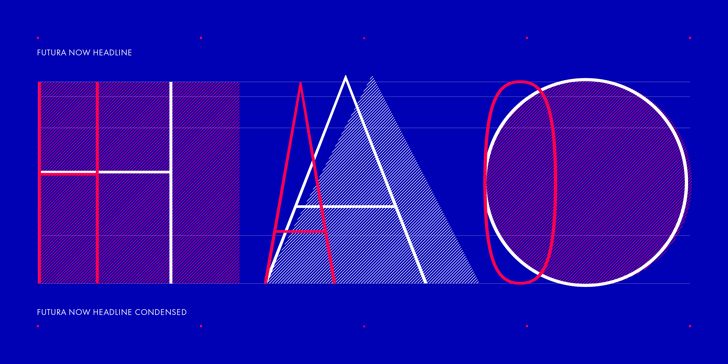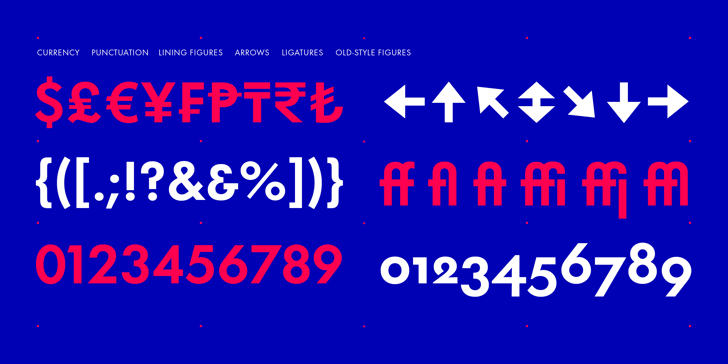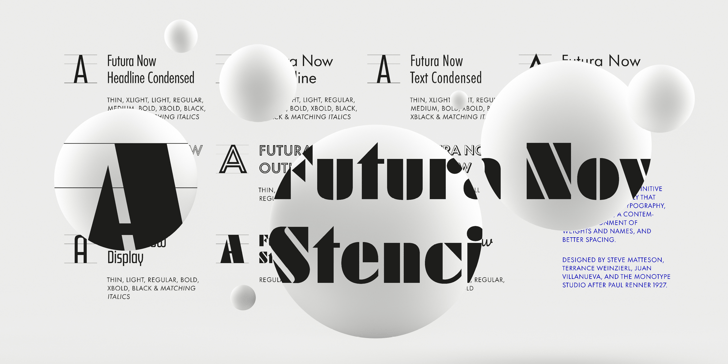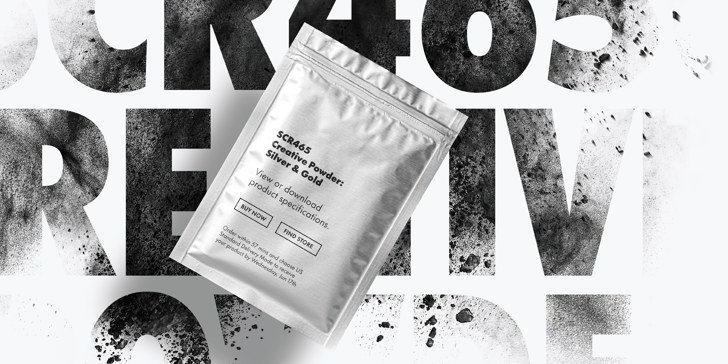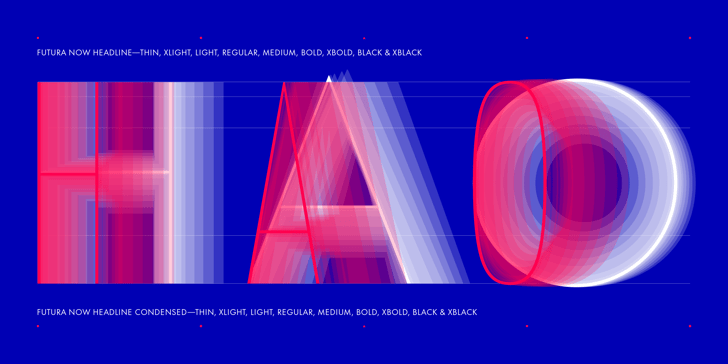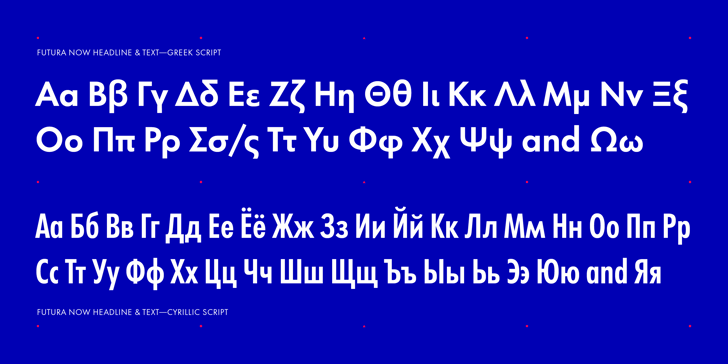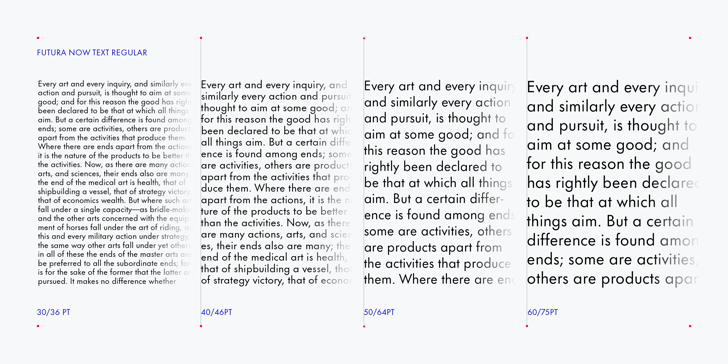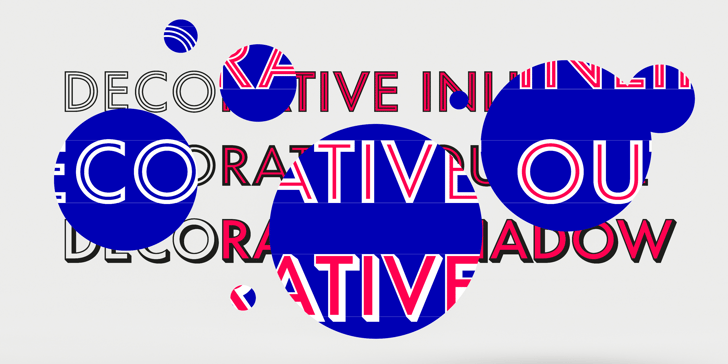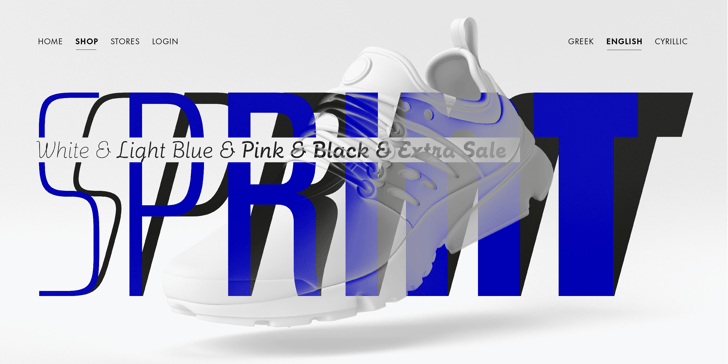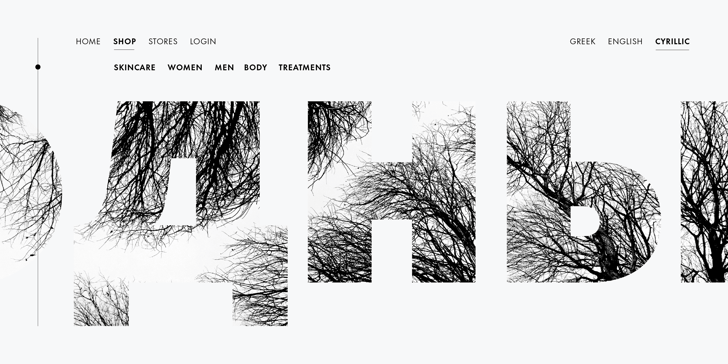
Futura® Now
The Futura Now Font Family was designed by Edwin W. Shaar, Steve Matteson, Paul Renner, Terrance Weinzierl, Monotype Design Studio and published by Monotype. Futura Now contains 102 styles and family package options.
For nearly 90 years, Paul Renner’s Futura has been as popular as it is versatile—from children’s books to fashion magazines to the plaque on the Moon. Futura is a typographic icon. Futura Now offers designers a chance to see Futura with fresh eyes. It’s more truly Futura-like than any digital version you’ve ever worked with. “It brings some much-needed humanity back to the world of geometric sans serifs,” says Steve Matteson, Monotype’s Creative Type Director who led the design team. “Despite its reputation as the ultimate modern typeface, Futura Now is surprisingly warm,” he explains. “It’s just as at home set next to a leafy tree as it is next to a stainless-steel table, because it skillfully navigates the border between super-clean geometry and humanist warmth.”
Futura Now—the definitive Futura—contains 102 styles, including: new Headline and Text weights; new Script and Display weights and styles; and new decorative variants (outlines, inlines, shadows, and fill). Its contemporary alignment of names and weights makes the family easier to understand and use, and its comfortable Text and judicious Headline subfamilies provide instantly refined spacing. With a large Latin, Greek, and Cyrillic character-set, Futura Now serves a wider international creative community. Futura Now is available both as individual OpenType fonts and as a set of Variable fonts, delivering limitless styles in a tidy digital footprint.